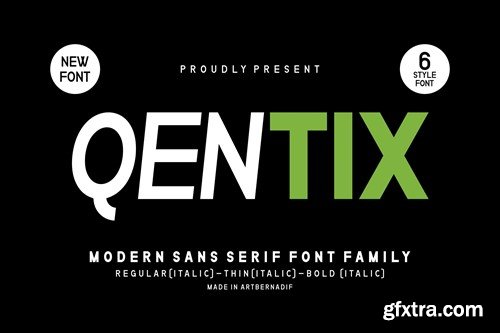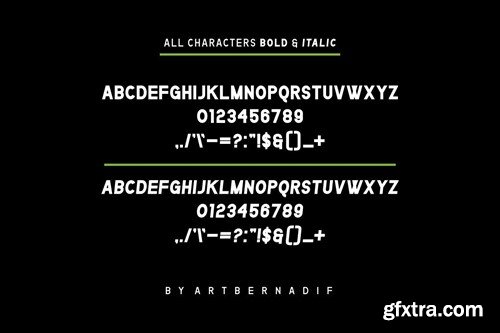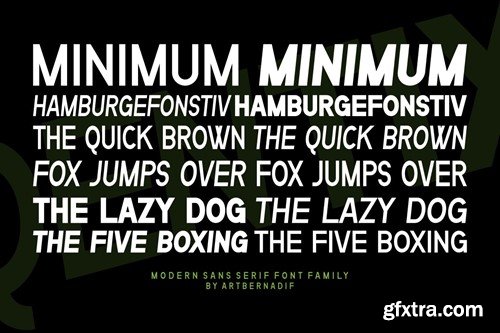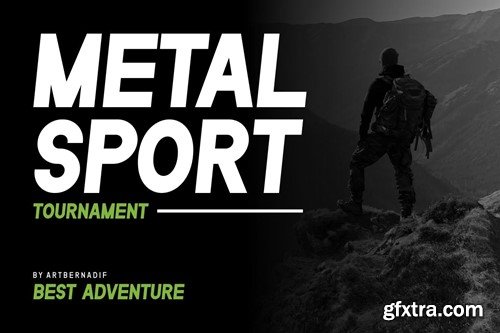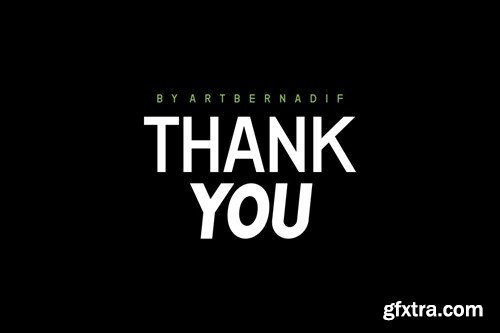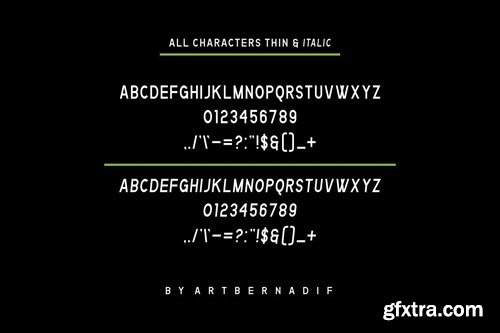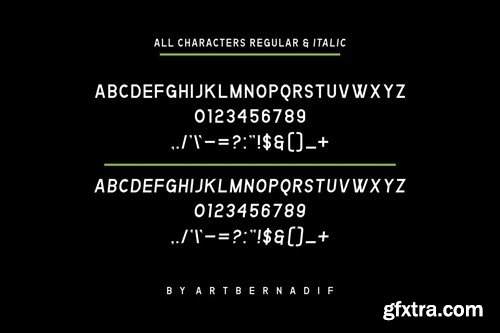
Qentix - 现代无衬线字体家族 WMHDMMN
Qentix - Modern Sans Serif Font Family WMHDMMN
Qentix - Modern Sans Serif Font Family
Introducing our new product Qentix Font Modern Sans Serif Font Family
Qentix Font- Modern Font is a bold and authentic display font. The font is suitable for any branding project like logo, t-shirt printing, esport, and many more. outstanding in a wide range of contexts.